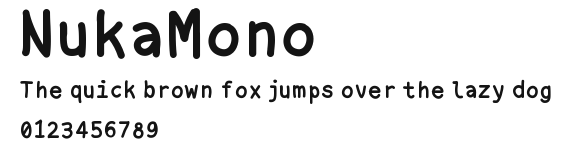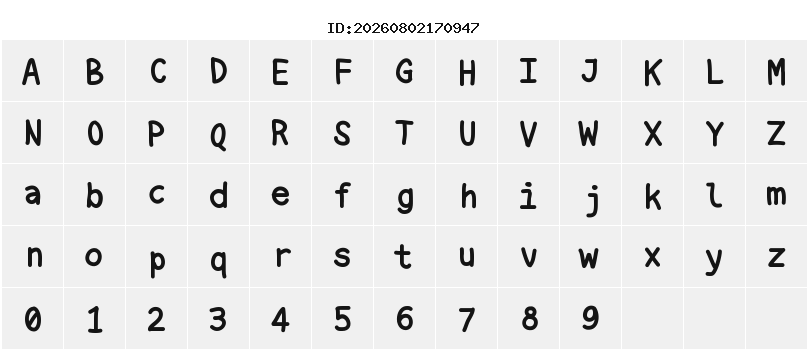
NukaMono Preview
About NukaMono.ttf
NukaMono.ttf is a modern, elegant sans-serif font designed for ultimate readability and visual harmony. Perfect for branding, headlines, web design, and print materials.